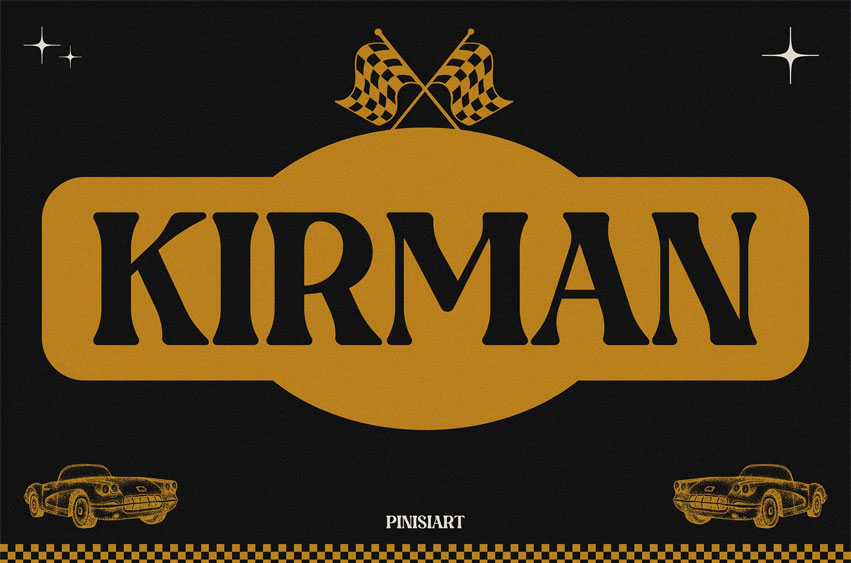
Kirman Font
Kirman Font is a high-contrast retro serif that blends rugged charm with timeless class. With sturdy serifs and curvy terminals, it echoes the spirit of classic motorcycles, summer road trips, and old-school signage. The font exudes nostalgia, grit, and masculine energy—yet stays readable and clean across sizes.
Whether you’re designing a garage logo, leather tag, vintage magazine, biker coffee mug, or retro event flyer, KIRMAN delivers a strong personality with minimal fuss. Its classic proportions work across both print and merch.
Fuel your next design with freedom and nostalgia. KIRMAN doesn’t just look vintage—it feels like the open road, the grit of the 70s, and the style of timeless adventure. Perfect for creators who want a bold serif that rides with attitude.
• Retro-Inspired Serif Font – Built for bold headlines and timeless logo work
• Sturdy, Readable Letterforms – Ideal for signage, patches, badges, and apparel
• Balanced Uppercase & Lowercase – Designed to evoke both energy and elegance
• Perfect for Lifestyle & Automotive Brands – From scooter clubs to surf rides
• Great Merch Fit – Works on mugs, shirts, tags, and product labels